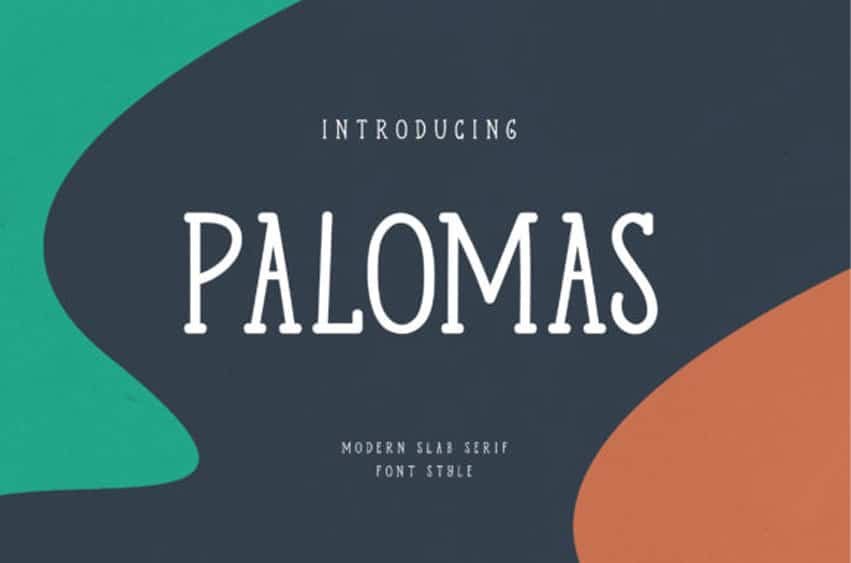
Palomas Font is a casual and adaptable slab serif font.
No matter the topic, this font will be an incredibly asset to your fonts’ library, as it has the potential to elevate any creation.